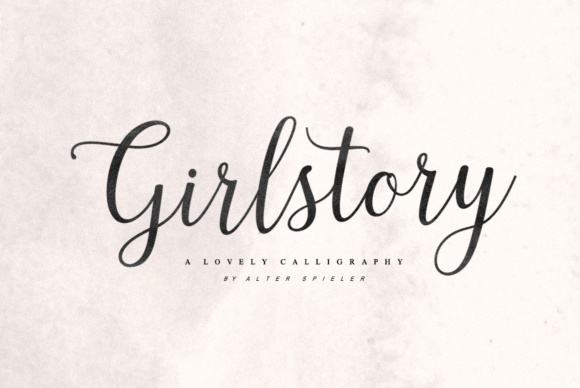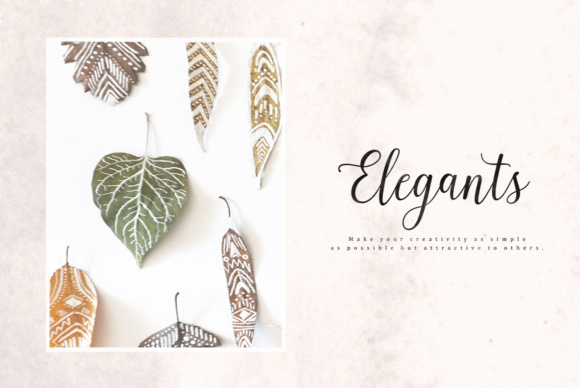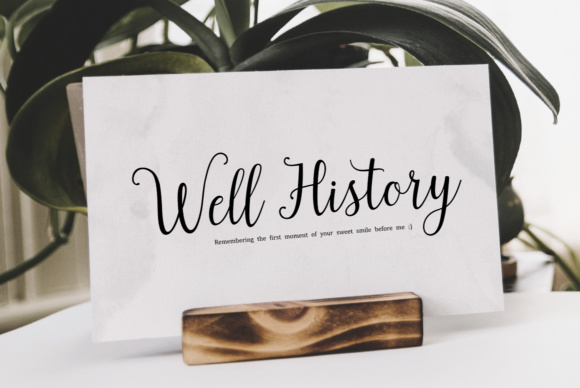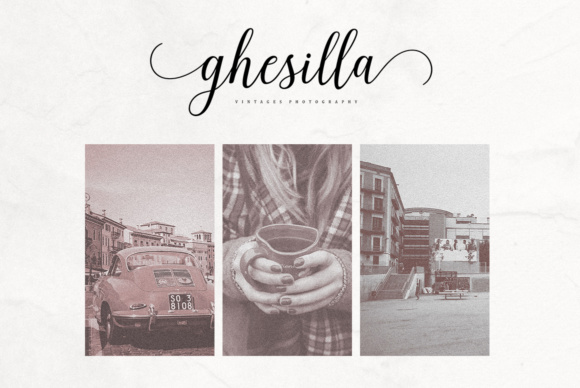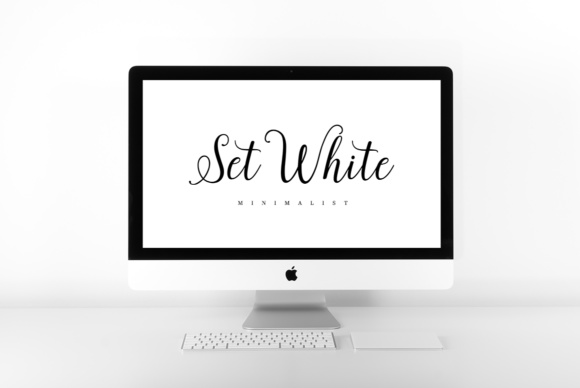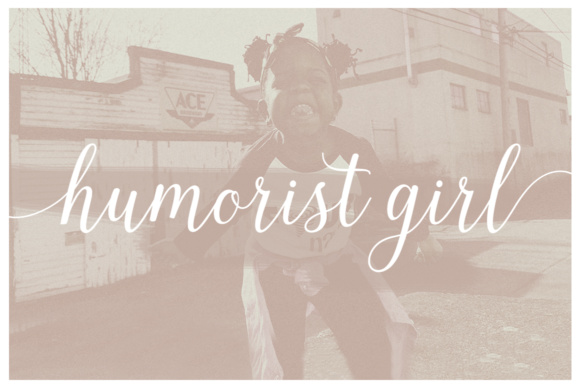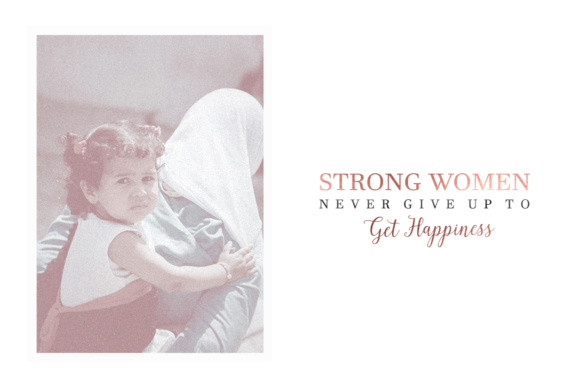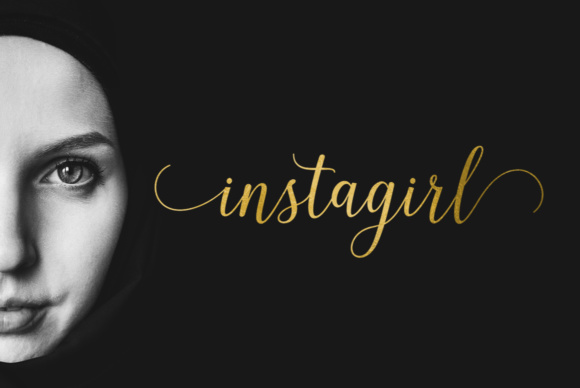
Girlstory Font
About Girlstory Font
The Girlstory is a font that inspired the story of a woman who tries hard for her children, never giving up in order to get happiness together.
It has simple and interesting style characters for various design needs.